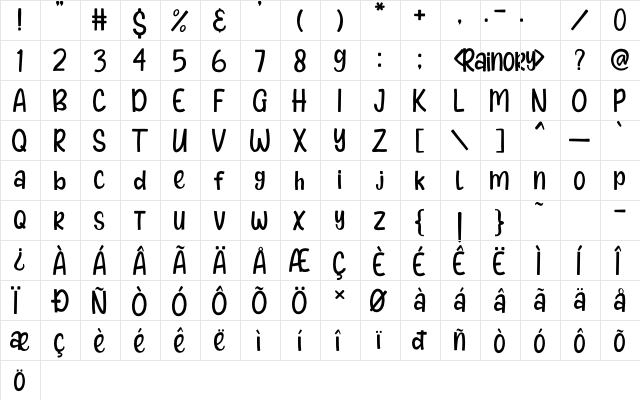
Rainory Regular
| Designer | Pandanwangi2020 |
Design Context for Rainory Typeface
Rainory is a composed and adaptable typeface that performs quietly and consistently across a wide range of design contexts.